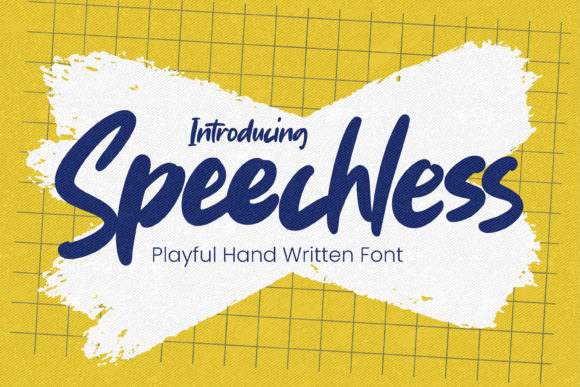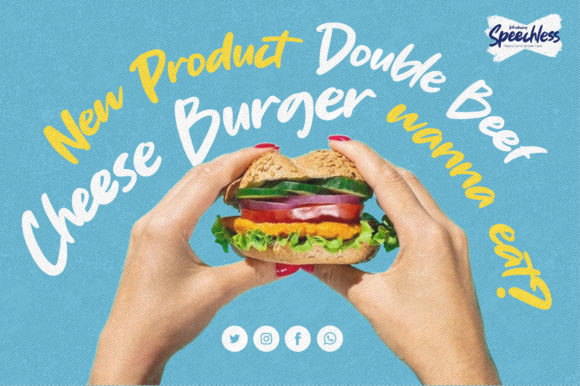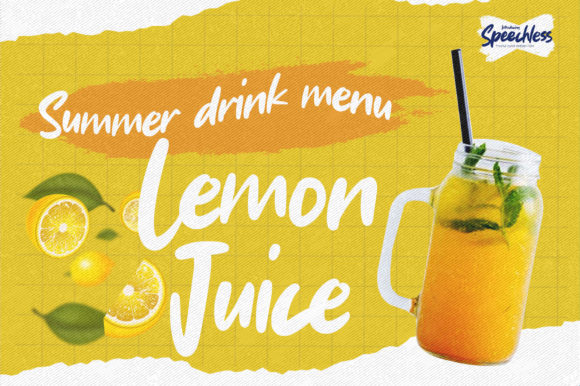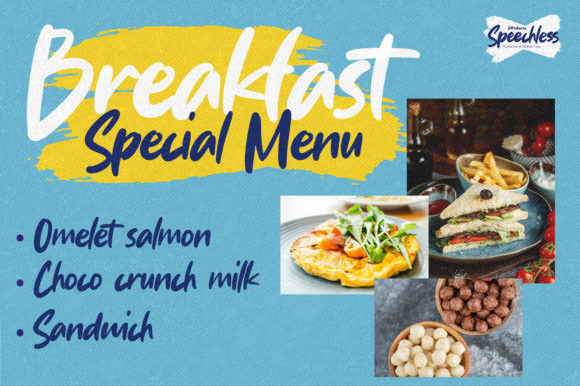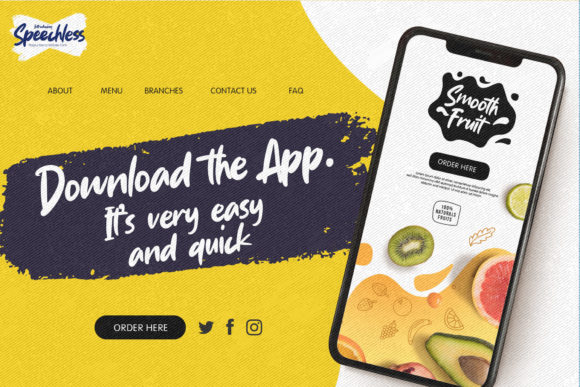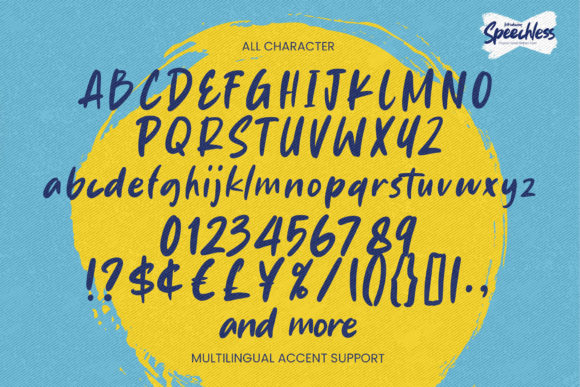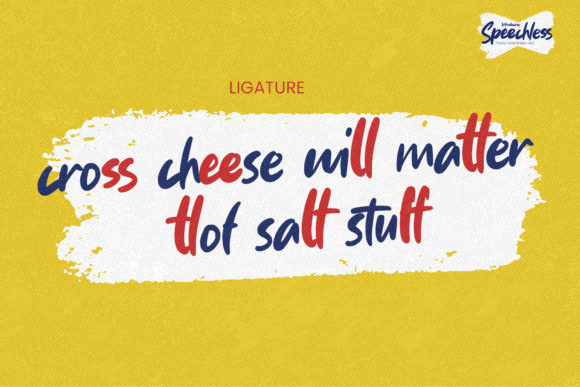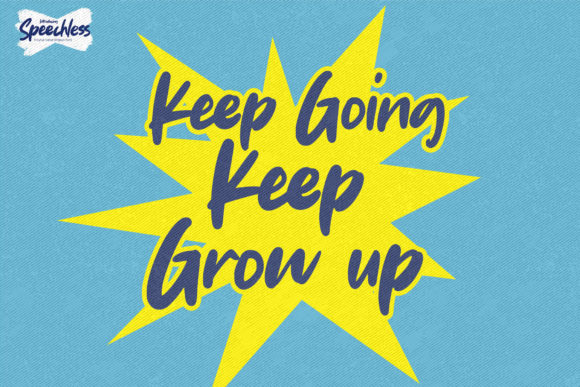
Speechless Font
About Speechless Font
Speechless is a retro and casual handwritten font. It looks wonderful on cards, quotes, greeting cards, logos, business cards and a variety of design which needs a customized touch.